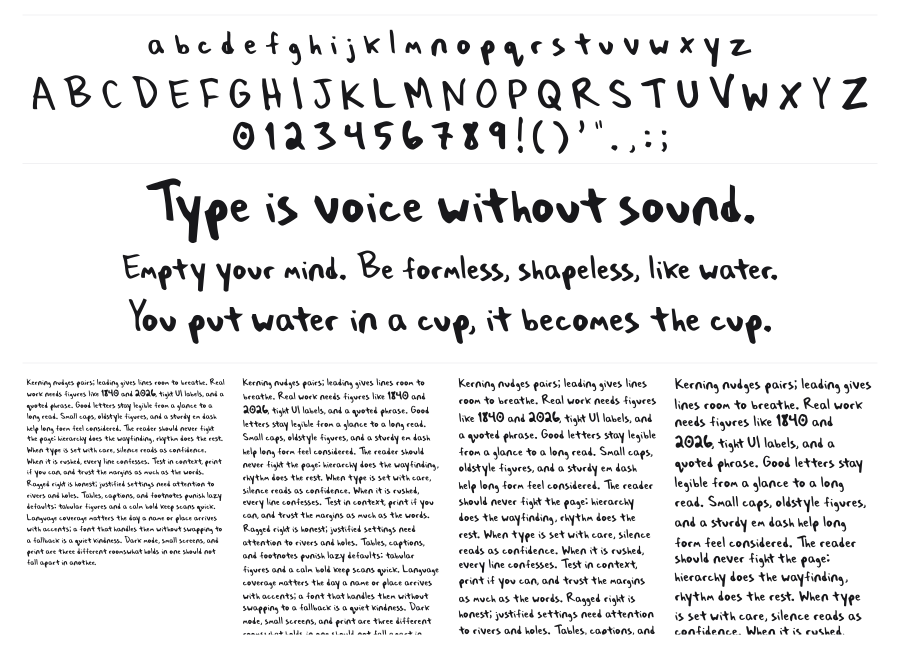
Taberhand
Taberhand is a bold, marker-style handwritten face from Taber with thick strokes and a loose, slightly childlike energy that feels genuinely casual rather than carefully crafted. The letterforms have that confident wobble of someone writing fast with a fat-tipped marker, making it a solid pick for headlines, posters, and packaging where you want something playful and approachable without overthinking it.